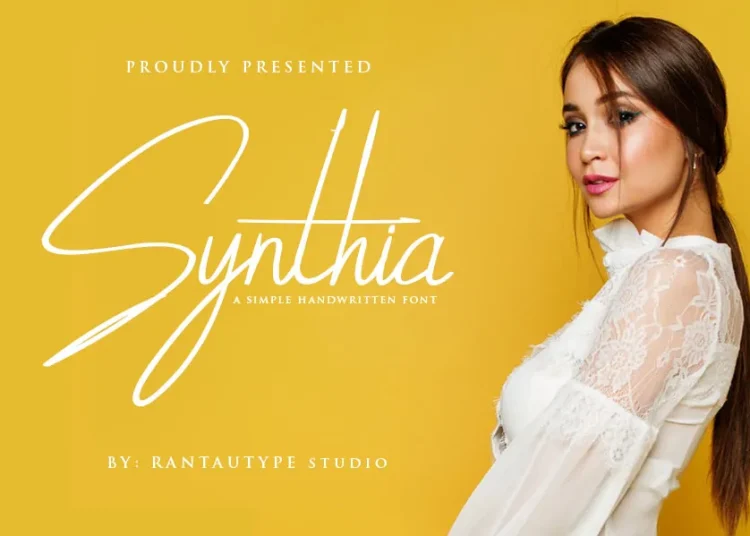
Synthia Font
This font draws inspiration from the simplicity and softness of women, translating these qualities into a sophisticated and classy design. Perfectly suited for display or headline use, it excels in making a strong impression in various applications. Whether you’re designing logos, logotypes, branding materials, wedding invitations, fashion-related graphics, labels, book covers, t-shirts, or Instagram posts, this font adds a touch of elegance and refinement to your projects.
The font’s graceful and sophisticated character ensures that it stands out in both modern and classic contexts, making it a versatile choice for a range of creative endeavors. Its design is crafted to convey a sense of elegance and style, enhancing the visual appeal of any design it is used in.